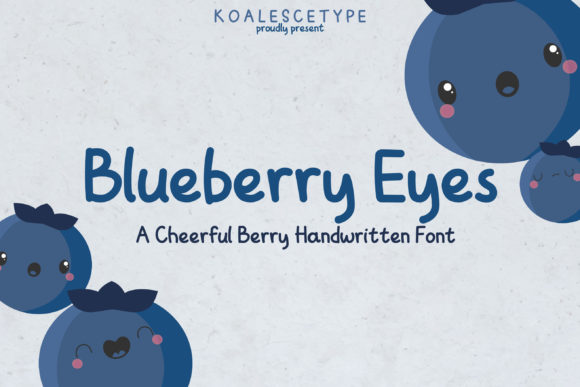
The Blueberry Eyes Font: A Whimsical Script to Elevate Your Designs
I’ll never forget the time I was working on a project for a client who wanted a font that was both playful and elegant. I spent hours scouring the internet for the perfect match, but nothing seemed quite right. That was until I stumbled upon the Blueberry Eyes font. With its relaxed theme and cute style, it was love at first sight! In this article, I’ll share my experience with this amazing font, its features, and how to make the most of it in your designs.
So, what makes Blueberry Eyes so special? Let’s dive into the good stuff! 😊
- ✨ Unique and eye-catching: This font stands out from the crowd with its whimsical and playful vibe.
- ✅ Versatile: Whether you’re working on a branding project, a craft, or a hobby, Blueberry Eyes can adapt to any theme or topic.
- 💫 Elegant yet casual: This font strikes the perfect balance between sophistication and playfulness.
Of course, no font is perfect, and Blueberry Eyes has a few minor quirks:
- 🤔 Limited use in formal contexts: While it’s amazing for creative projects, it might not be the best fit for very formal or corporate designs.
- ⚠️ Some letters may require adjustment: You might need to tweak certain letters to get the perfect spacing and alignment.
One of the best things about Blueberry Eyes is its range of OpenType features and glyphs. These allow you to customize your text and add unique touches to your designs. Some common features include:
- Stylistic alternates: Swappable letters or glyphs that offer alternative designs.
- Glyphs: Special characters or symbols that can add visual interest to your text.
Experiment with these features to create stunning and eye-catching text effects!
The Designer Inspiration Behind Blueberry Eyes
According to its creators, Blueberry Eyes was inspired by the whimsical world of illustrations and hand-drawn typography. The goal was to craft a font that was both playful and elegant, perfect for creative projects that require a personal touch.
- Q: What type of projects is Blueberry Eyes best suited for?
- A: Blueberry Eyes is versatile and can be used for a wide range of projects, from branding and advertising to crafts and hobbies.
- Q: Is Blueberry Eyes available in different weights or styles?
- A: Currently, Blueberry Eyes is available in a single style, but its versatility and range of OpenType features make it adaptable to various design needs.
In conclusion, Blueberry Eyes is a fantastic addition to any design library. Its unique blend of whimsy and elegance makes it perfect for creative projects that require a personal touch. With its range of OpenType features and glyphs, you can experiment with different styles and effects to elevate your designs.